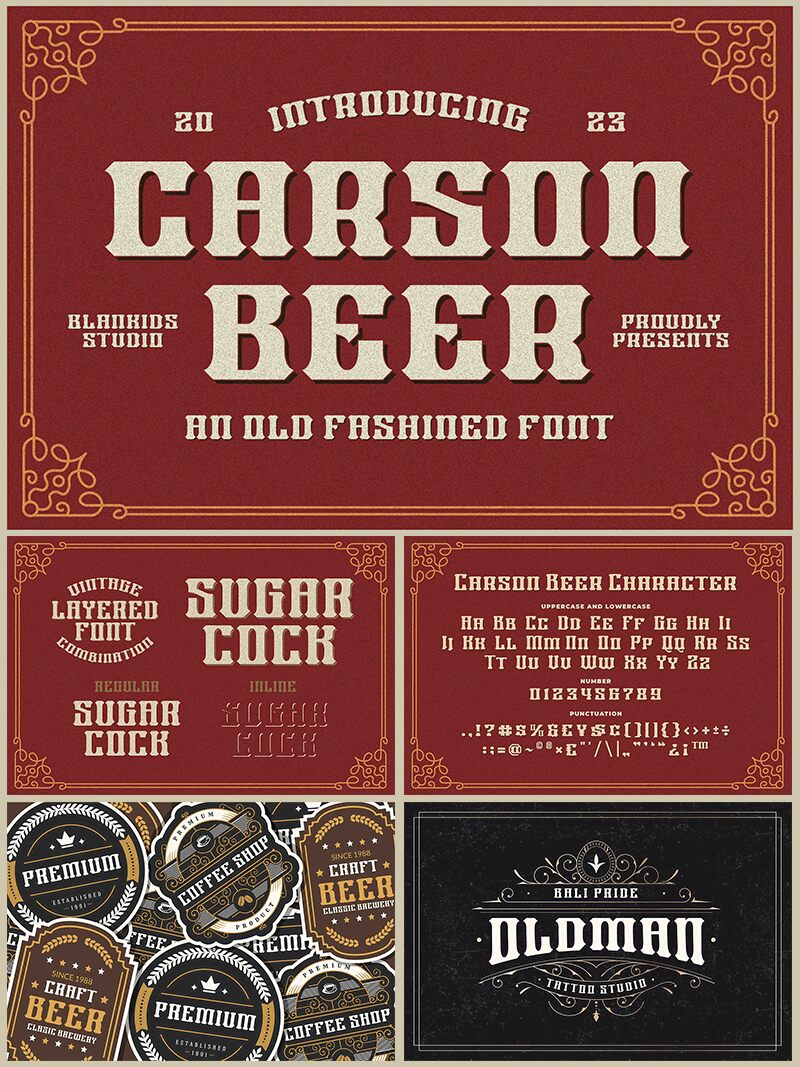
Carson Beer Regular
The Carson Beer font, designed by Bangkit Tri Setiadi of Blankids Studio, exudes a captivating Western-inspired aesthetic. This bold and striking display typeface commands attention with its strong, angular letterforms and distinct personality. The font's robust, chunky appearance evokes a sense of rugged tradition, making it an alluring choice for projects seeking to convey a sense of heritage and authenticity.
The Carson Beer font's versatility allows it to shine in a variety of design contexts, from eye-catching headlines and impactful logo treatments to dynamic branding and packaging applications. Its bold presence and vintage-inspired charm lend themselves particularly well to projects seeking to celebrate the great outdoors, heritage-driven brands, or applications with a rugged, frontier-inspired narrative.